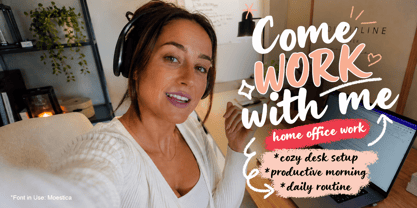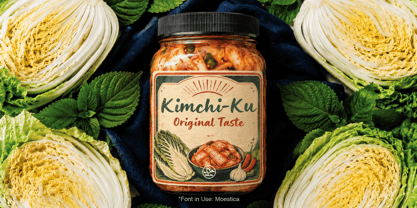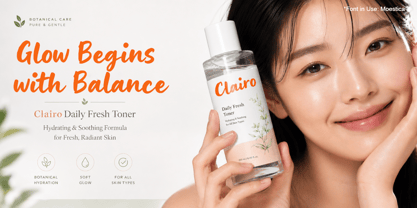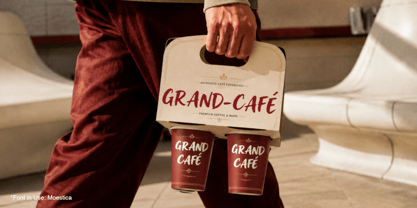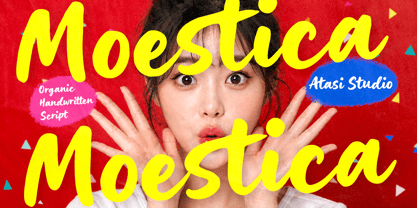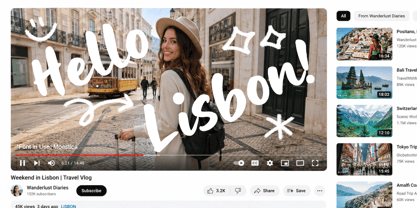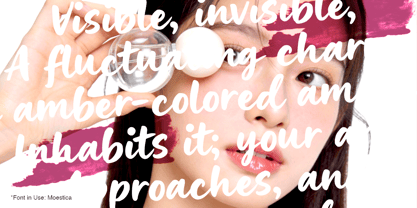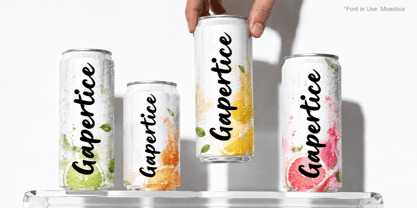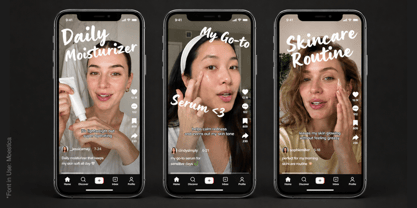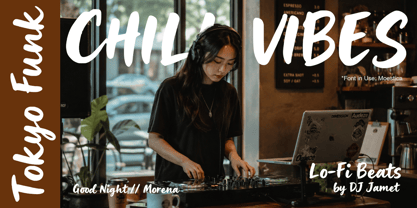
Moestica
par Atasi Studio
La famille de polices Moestica a été conçue par Rizka Prayuda et publiée par Atasi Studio. Moestica contient 2 styles et options de package familial. En savoir plus sur cette famille
Moestica is a bold organic handwritten script font characterized by playful letterforms, energetic strokes, and a naturally expressive rhythm. Its smooth curves and lively handmade character create a friendly, modern aesthetic while ensuring strong visual impact. Designed for attention-grabbing typography, Moestica infuses warmth and personality into every word. This versatile handwritten font is perfect for logos, branding, product packaging, beauty campaigns, fashion graphics, food and beverage designs, posters, social media content, advertisements, merchandise, invitations, quotes, and editorial headlines. Its bold script style excels in large display text, helping brands convey a youthful, cheerful, and approachable identity. Use Moestica to craft memorable logotypes, vibrant packaging, playful promotional graphics, and authentic hand-lettered compositions. Whether for a modern lifestyle brand, cosmetic packaging, café identity, children’s products, or creative marketing campaigns, Moestica offers an organic handwritten appearance that feels spontaneous, confident, and full of character. Created by Atasi Studio, Moestica is designed for those seeking a bold handwritten script, organic display font, playful branding typeface, and expressive lettering style all in one distinctive font.
Concepteurs: Rizka Prayuda
Fonderie: Atasi Studio
Atasi Studio is an independent type foundry based in Medan, Indonesia and was established in 2018.